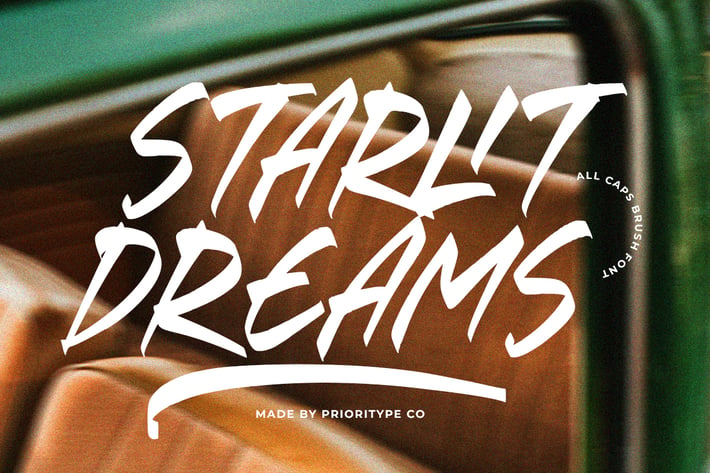
Starlit Dreams - Brush Font
Discover Starlit Dreams. A sleek brush-style font designed for bold branding, striking logos, and captivating posters. With dynamic slanted strokes and stunning under swashes, it's your key to standout designs that command attention.
Features: Uppercase, Lowercase, Numeral, Punctuation, Multilingual, Ligatures & Swash.